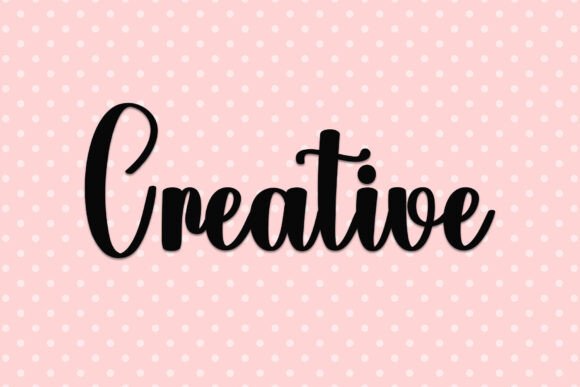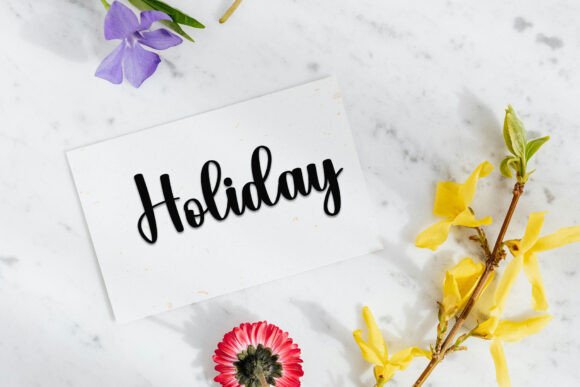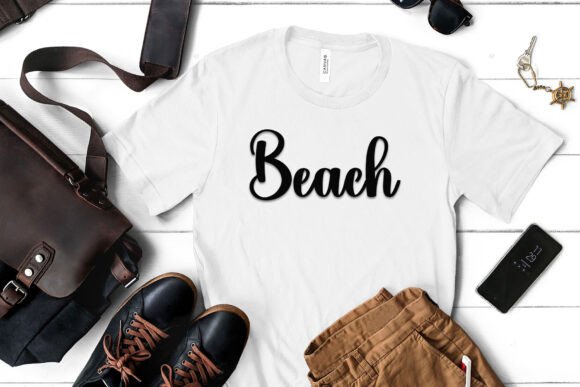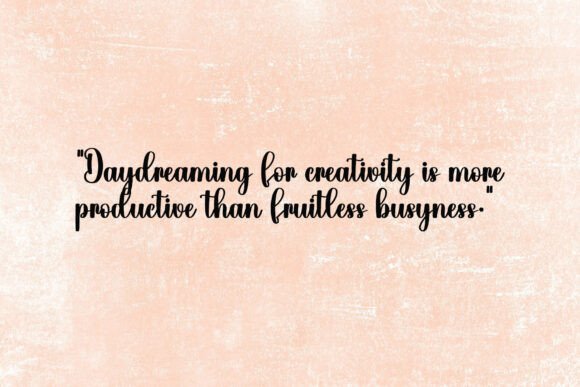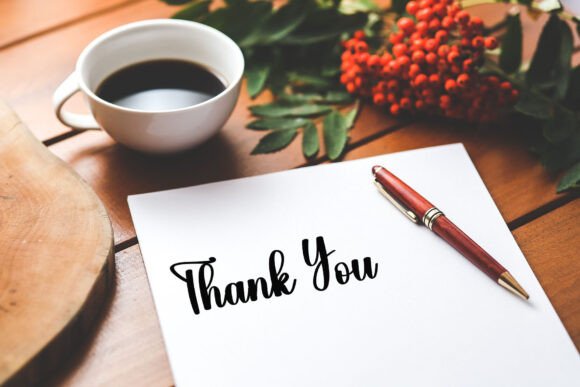
Introduction to Digital Curio Font
Digital Curio is a sweet and cursive handwritten font.
This gentle font will look gorgeous on a variety of design ideas It will add a joyful and romantic touch to each of your projects.
Key Features of Digital Curio Font